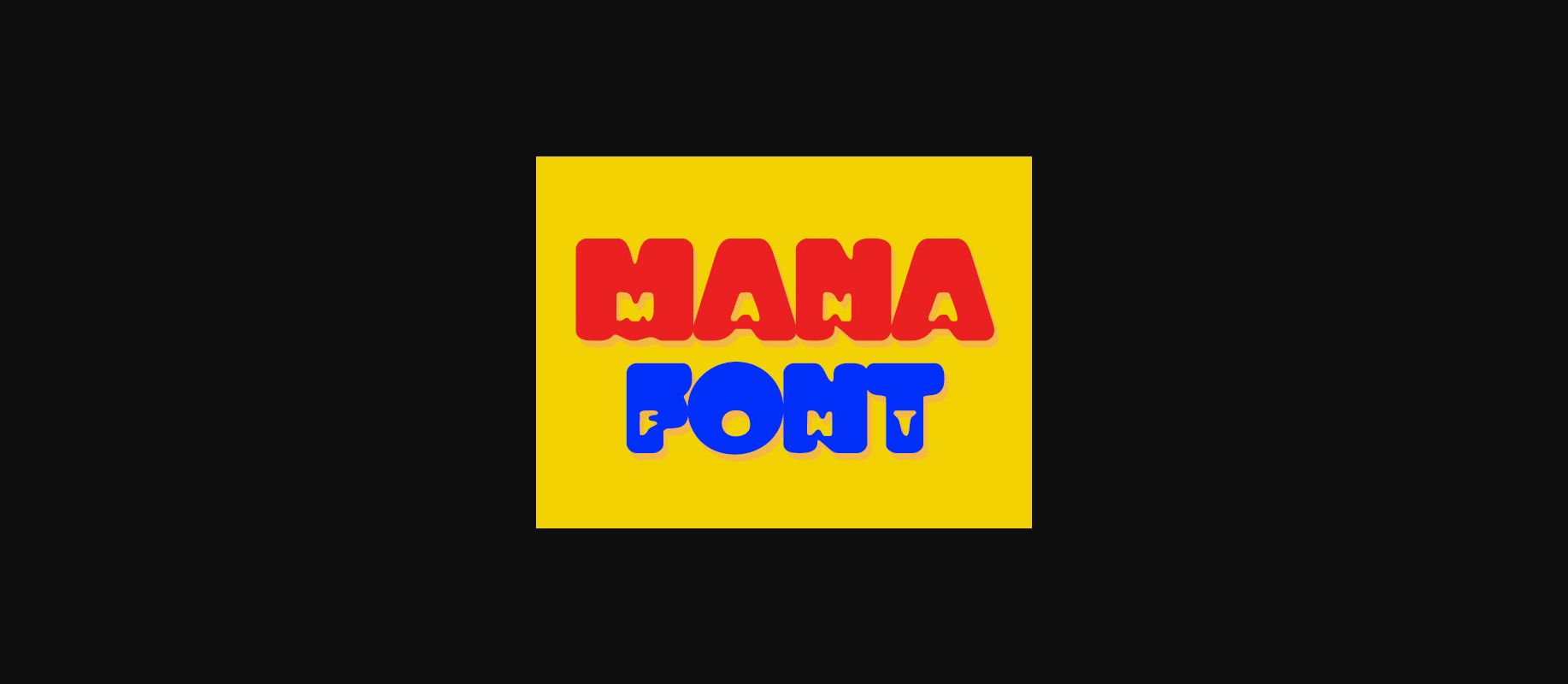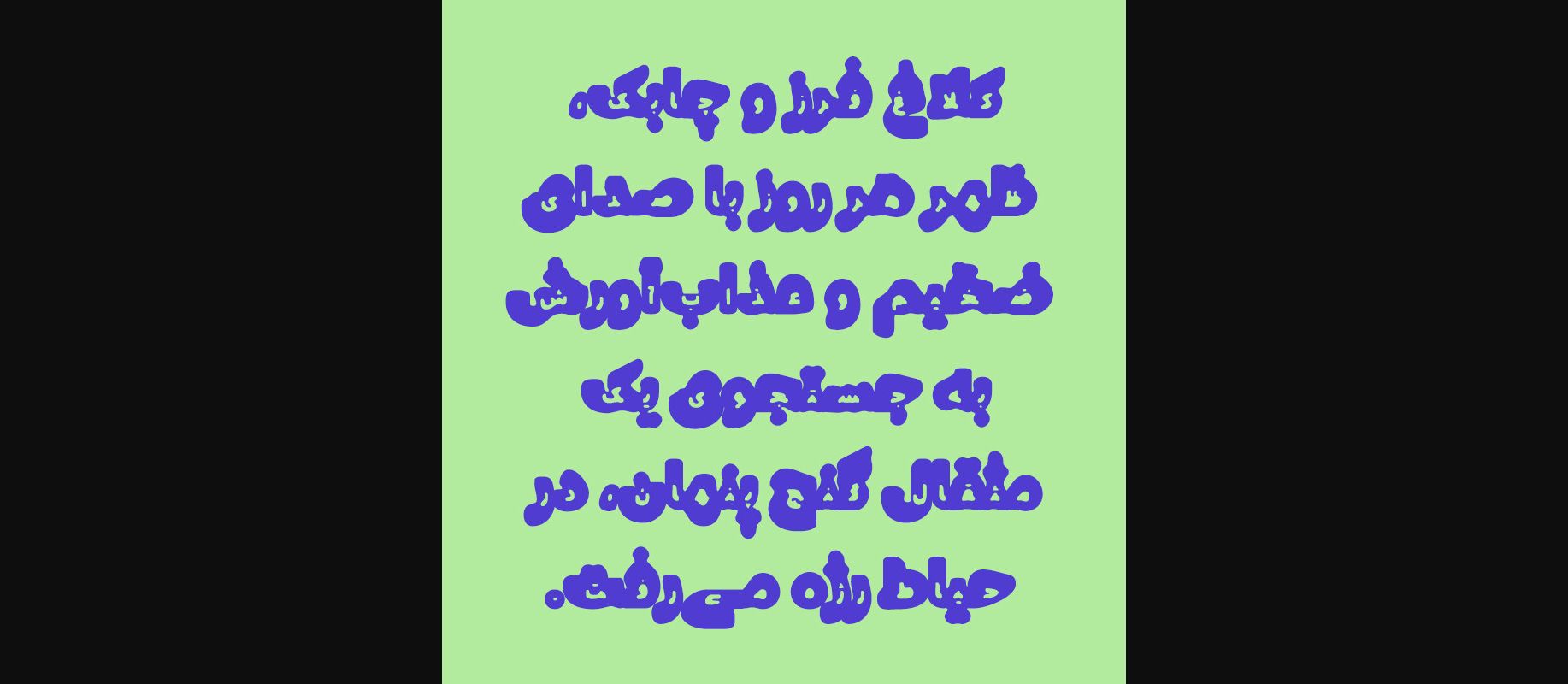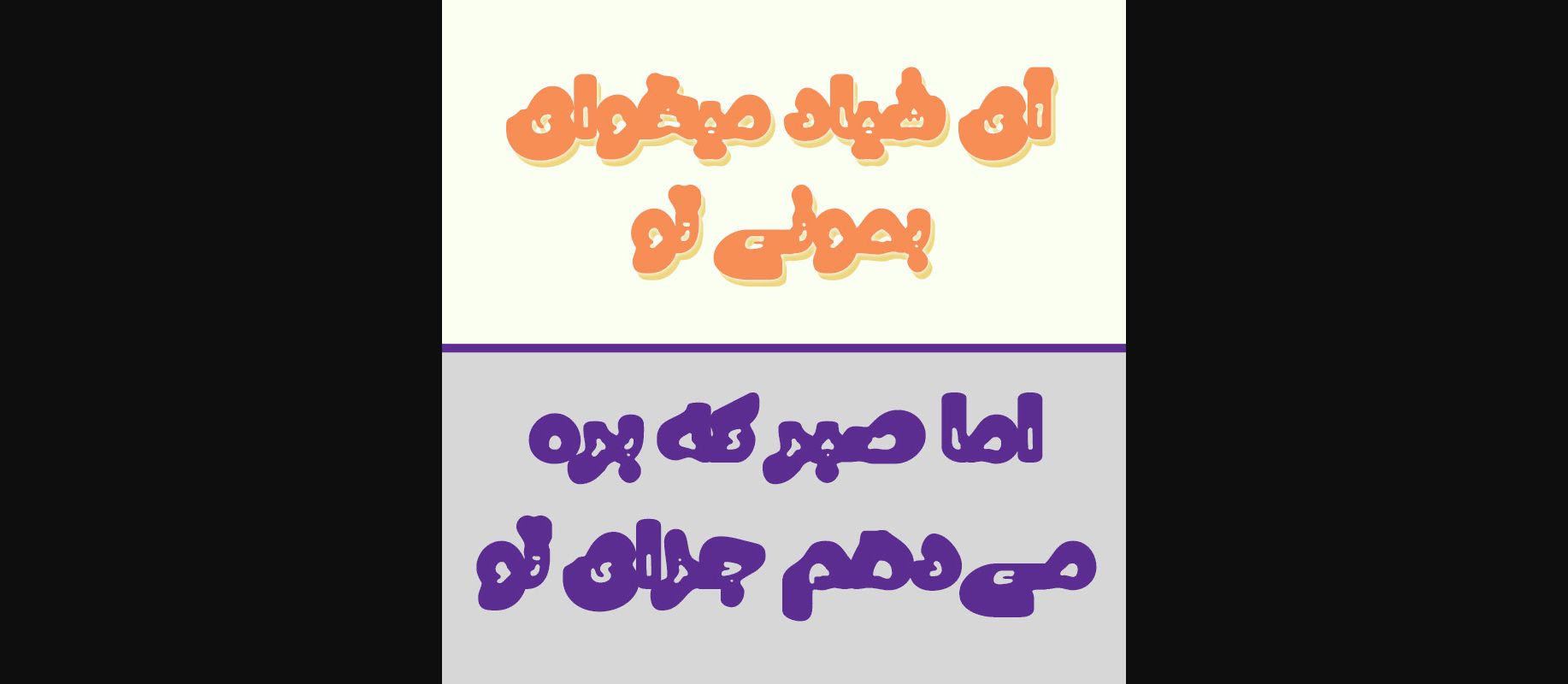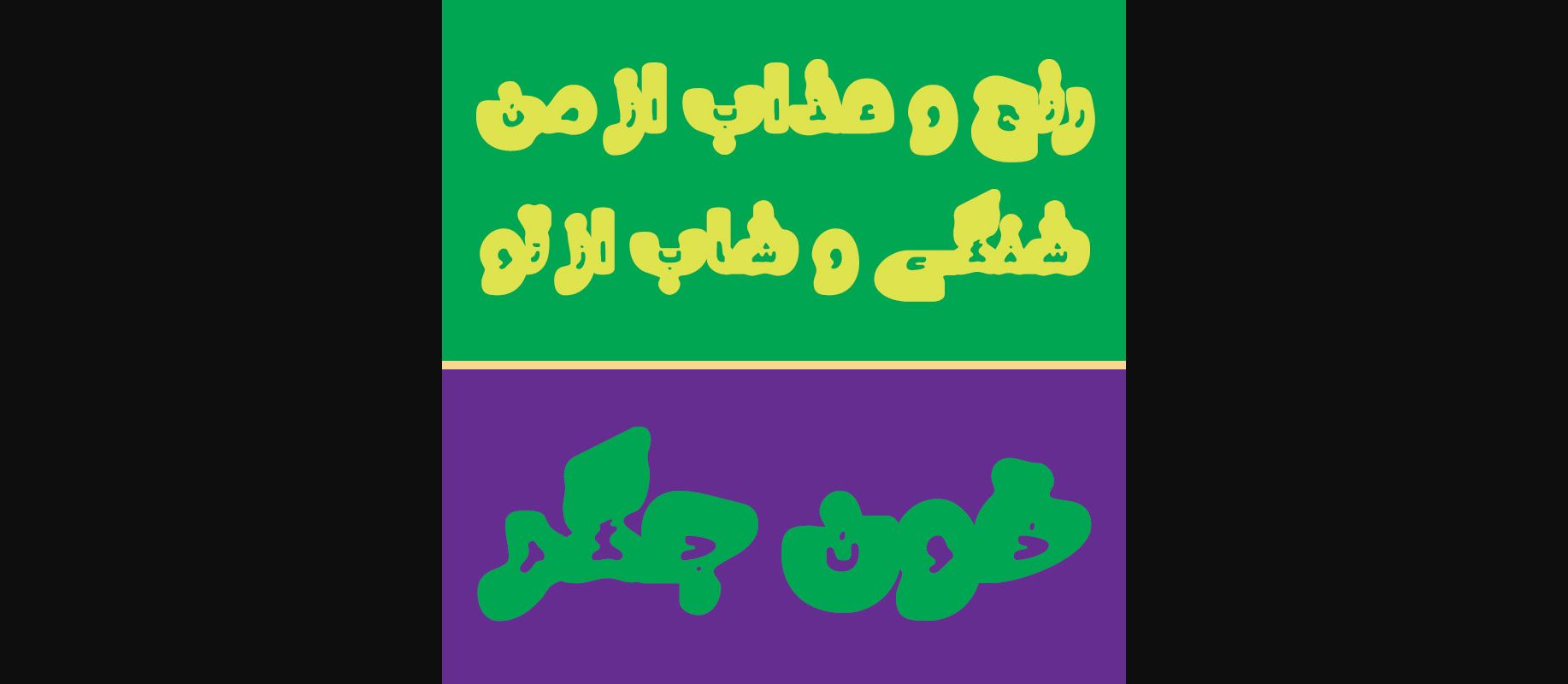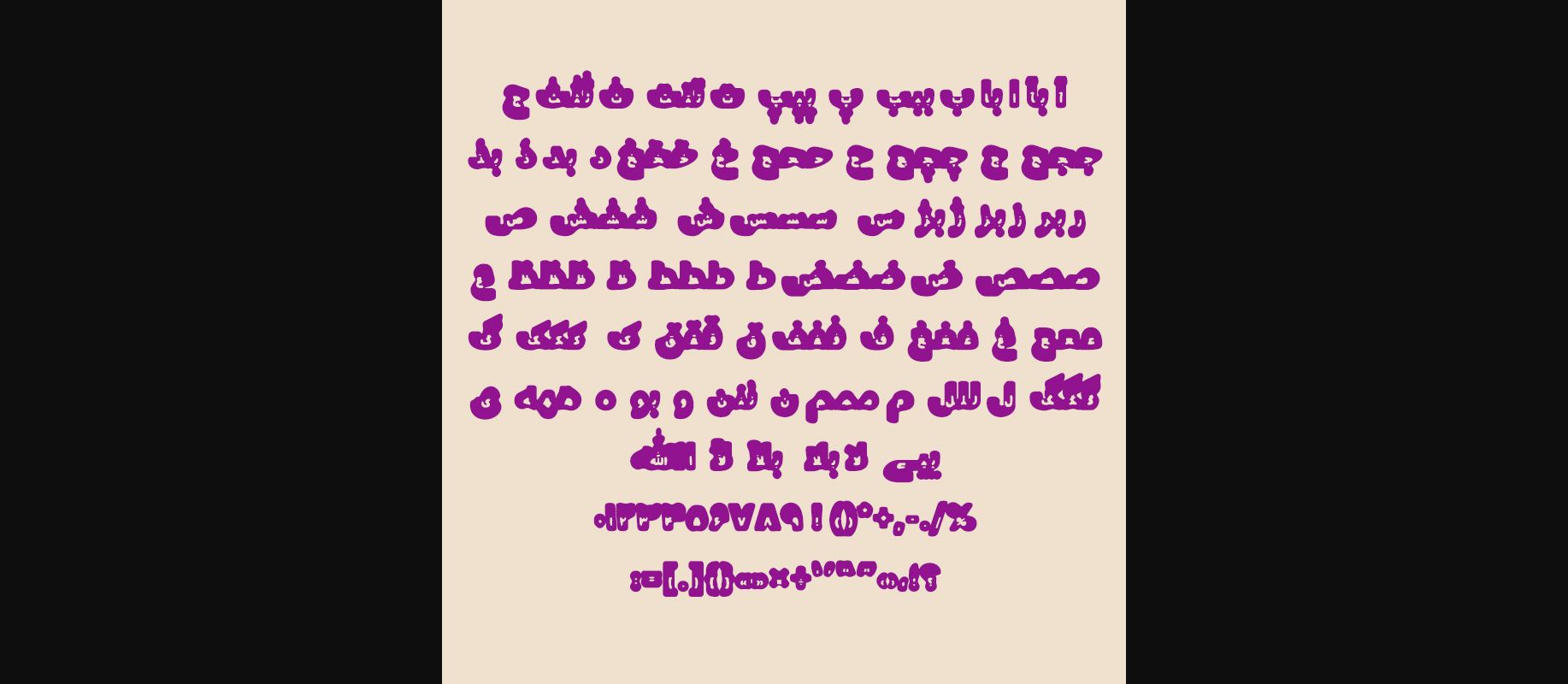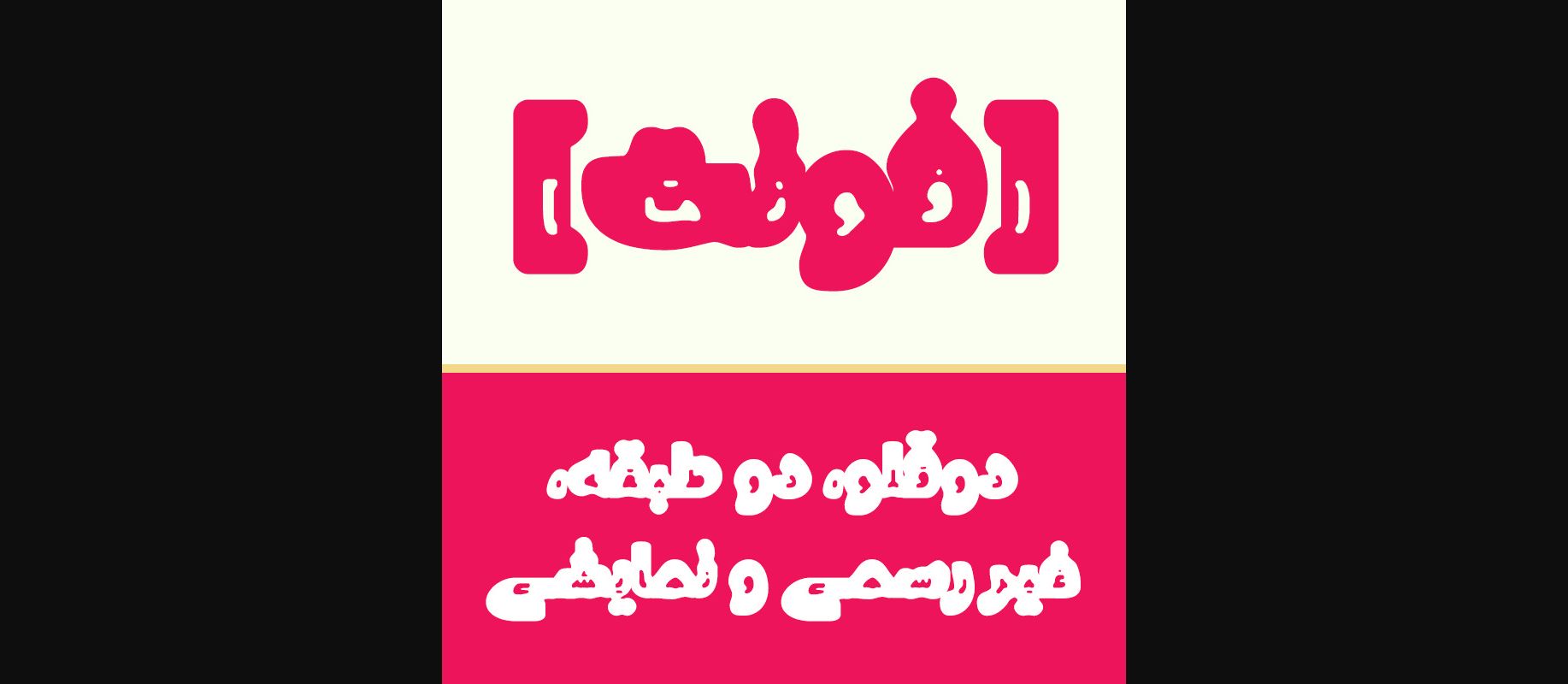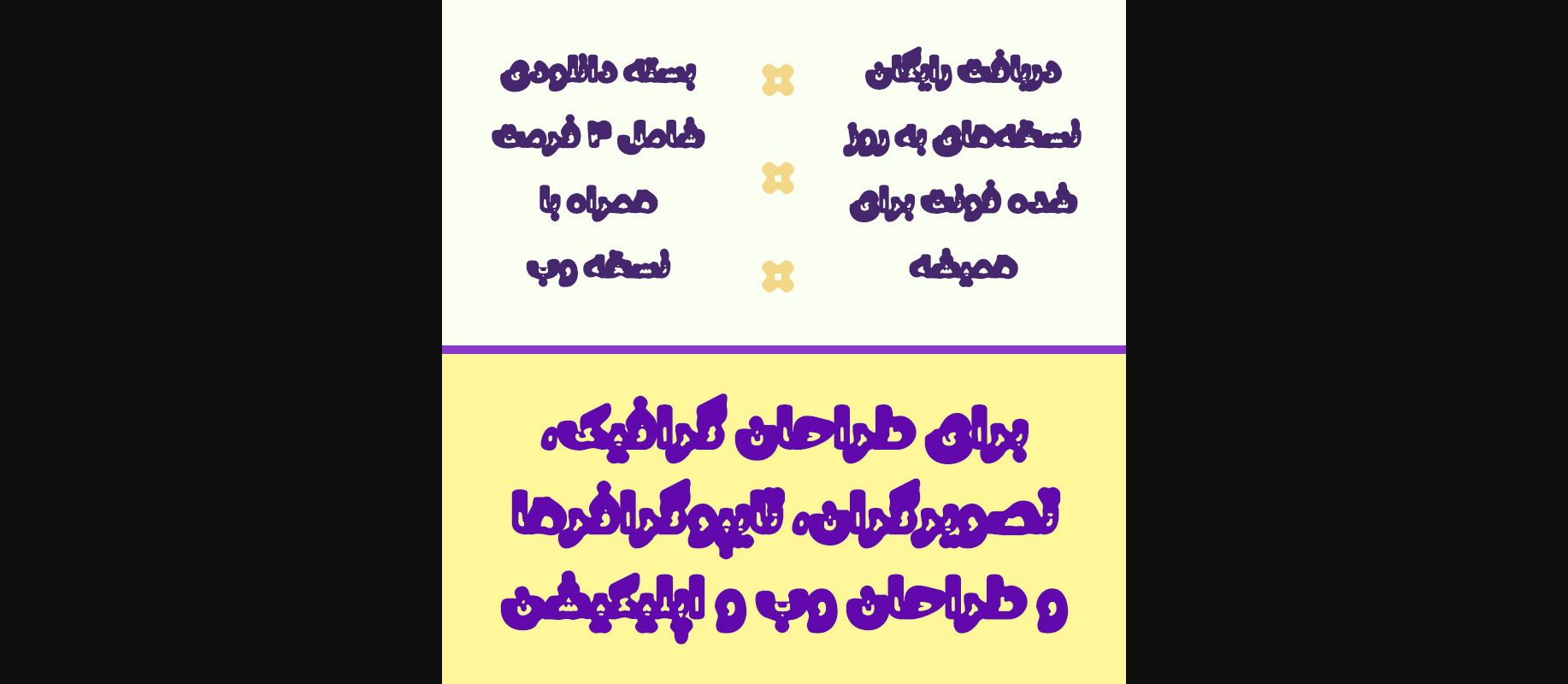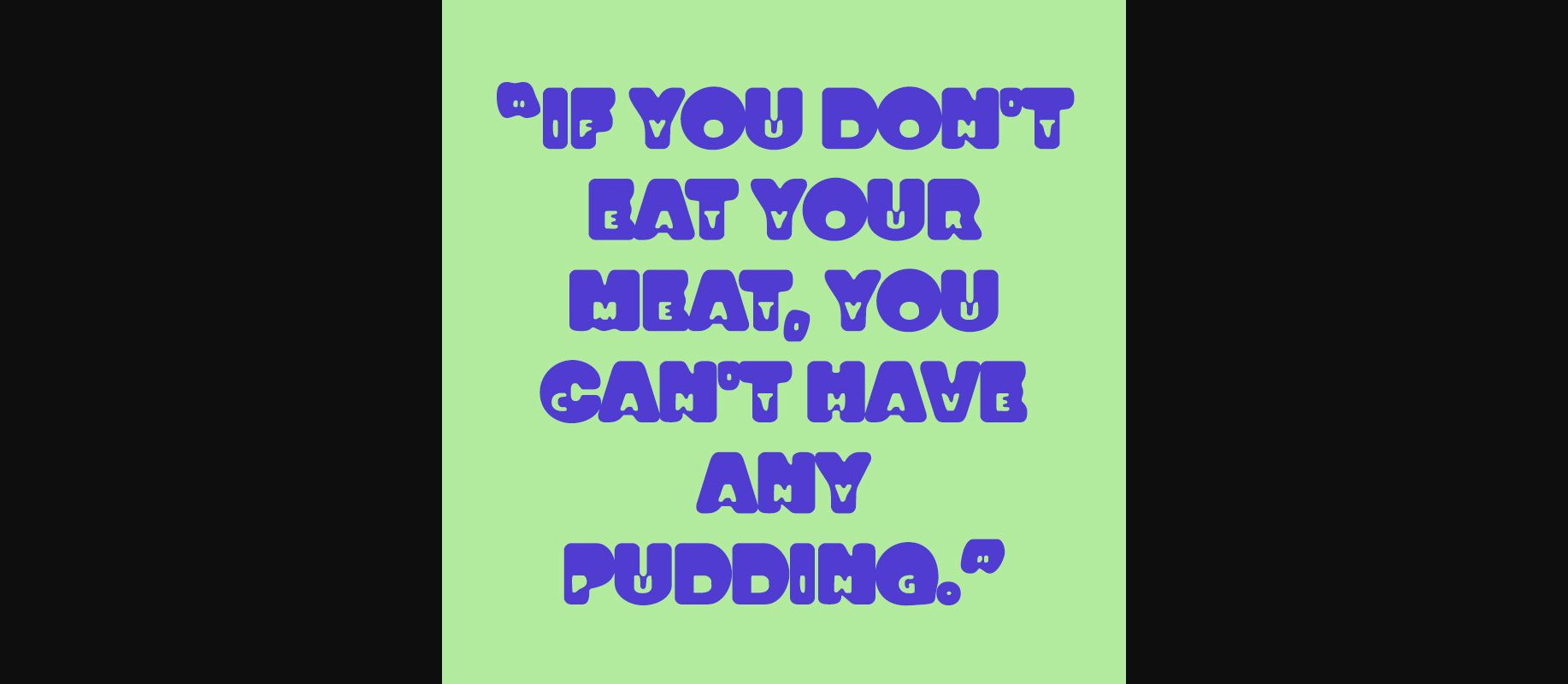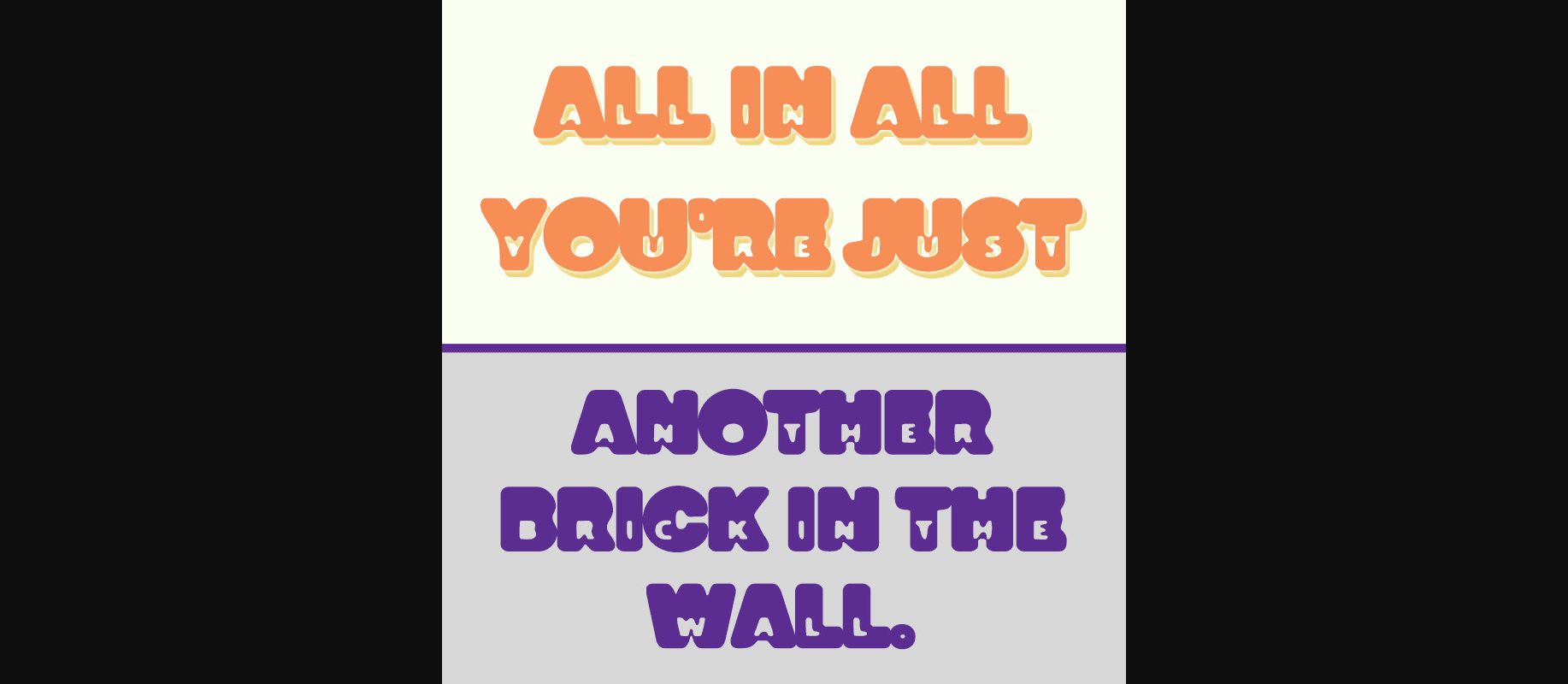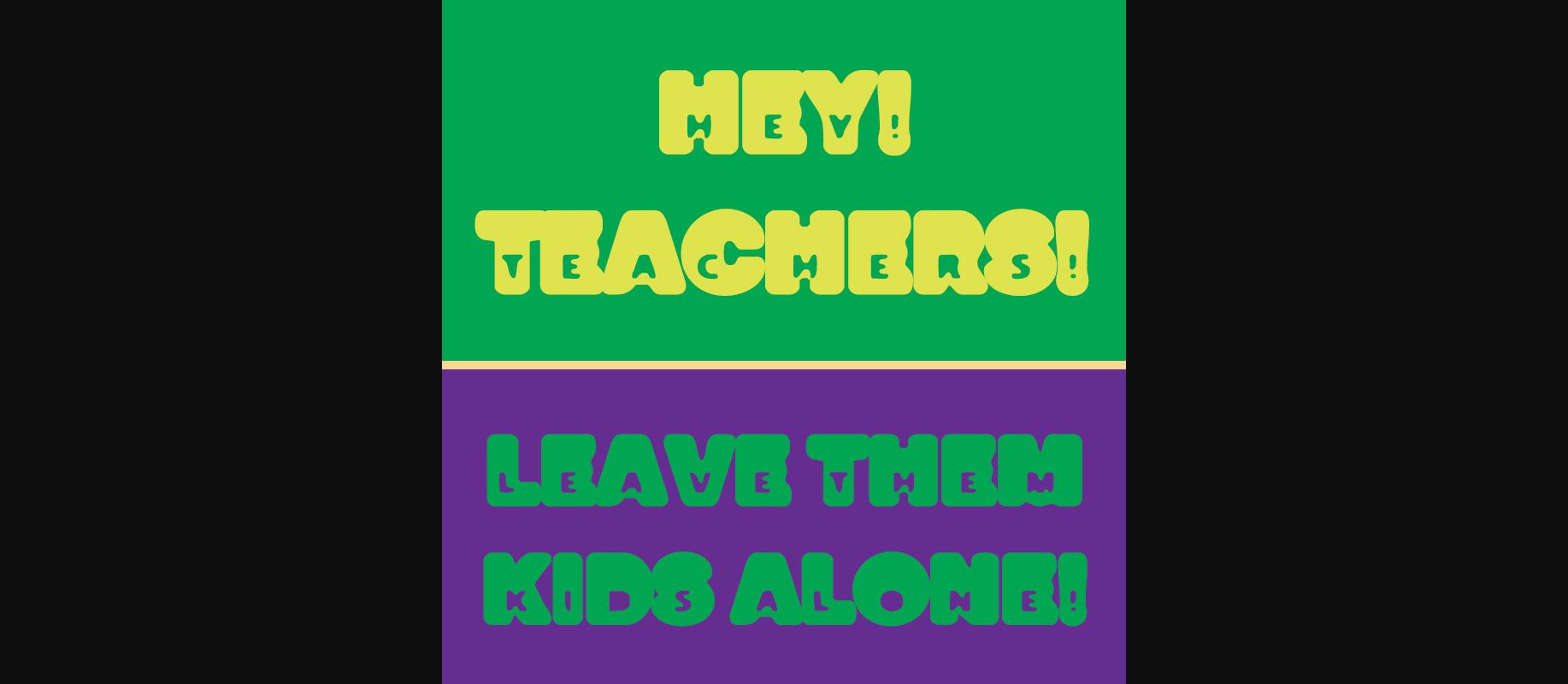
Mana Font
About Mana Font
A twin/duplex font with a heavy set behind the small letters. You can have a fun way to write your texts and headlines with this font. It supports Persian/Arabic too.